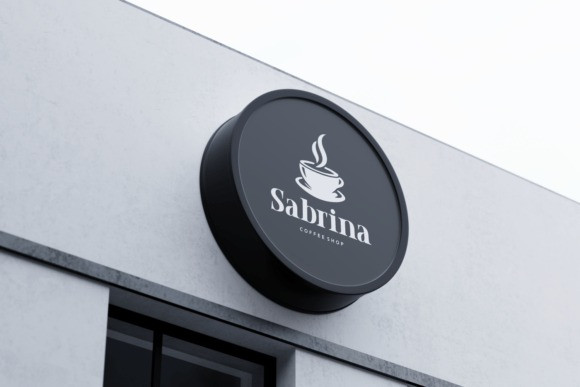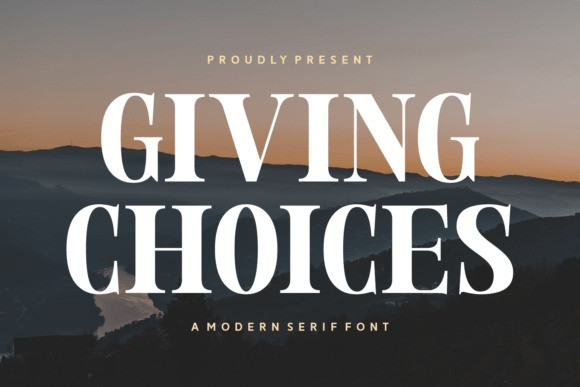
Giving Choices Font
Giving Choices Font, a modern serif font. The expansive, atmospheric scenery complements the font’s elegant and confident character, making it suitable for impactful headlines and sophisticated branding.